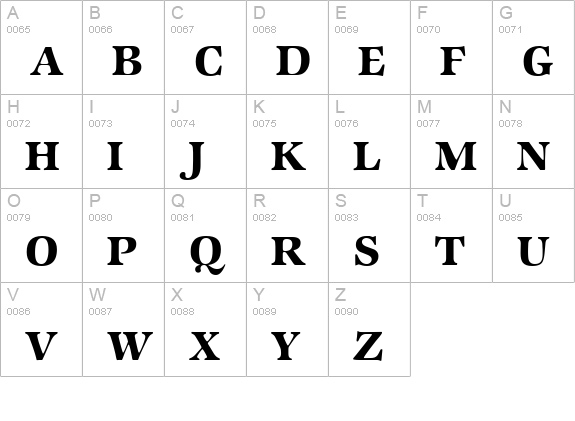
ZabriskieInternational-Bold is a strong, high-contrast variant in the ZabriskieInternational typeface family \xE2\x80\x94 well suited to headlines, attention-grabbing titles, and strong calls-to-action.
ZabriskieInternational-Bold is a striking and modern font that exudes confidence and boldness. Its strong lines and distinctive style make it perfect for headlines, titles, and branding projects that require a powerful impact. The bold weight of this font commands attention and ensures that your message will be noticed. What sets ZabriskieInternational-Bold apart is its versatility - it is equally at home in digital and print applications, making it a valuable addition to any designer's toolkit. Whether you're working on a website, a poster, a logo, or any other project that requires a bold and impactful font, ZabriskieInternational-Bold will deliver the results you're looking for. Best of all, ZabriskieInternational-Bold is available for free download at FontsMarket.com, making it accessible to designers of all levels. Don't miss out on the opportunity to add this powerful font to your collection and take your designs to the next level. Download ZabriskieInternational-Bold today and see the difference it can make in your projects.